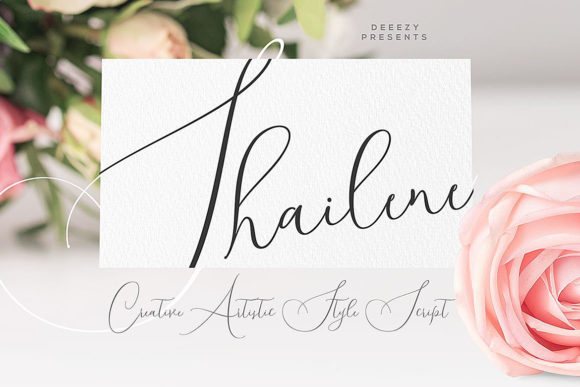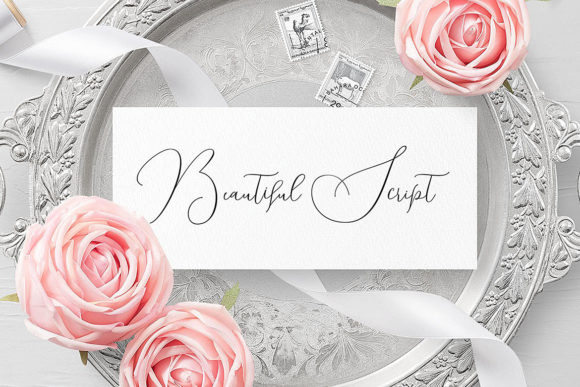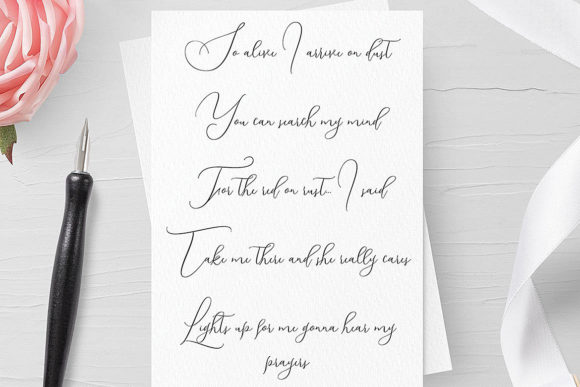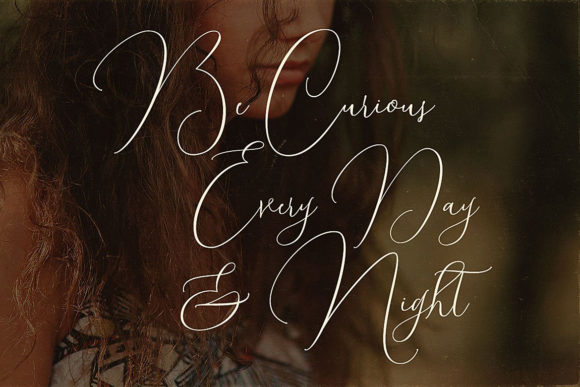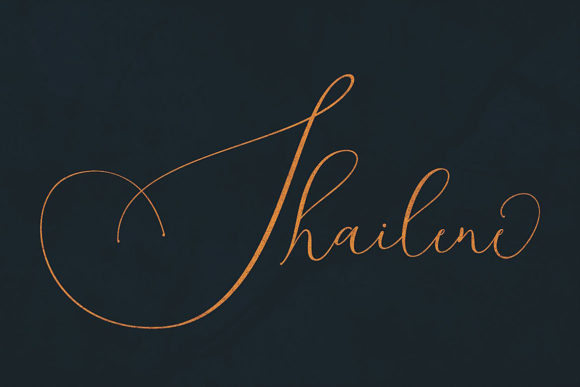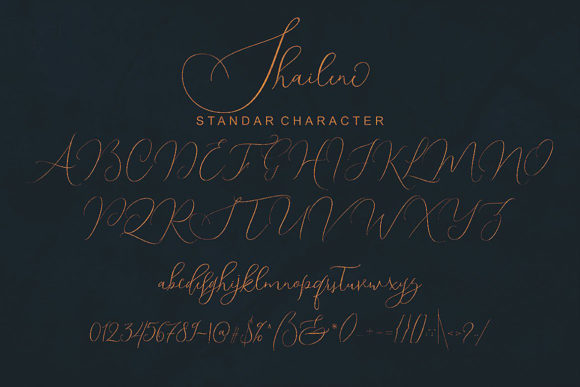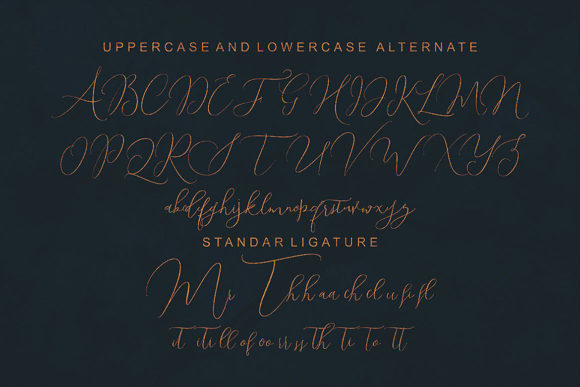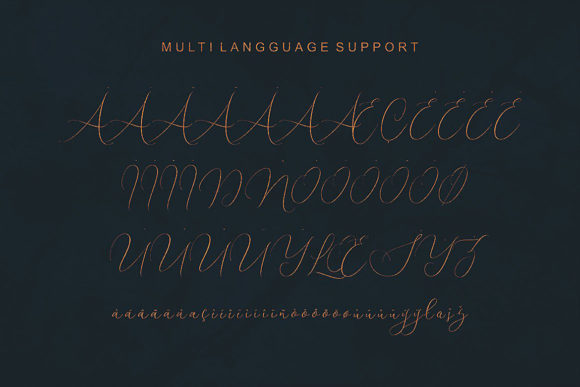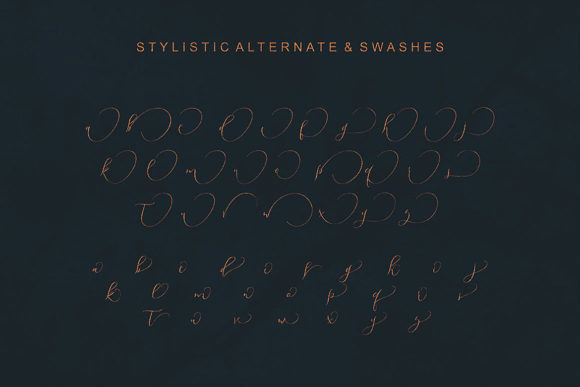
Shailene Script Font
About Shailene Script Font
Shailene is a thin and delicate handwritten font with a romantic twist. It will turn any design project into a stand out!